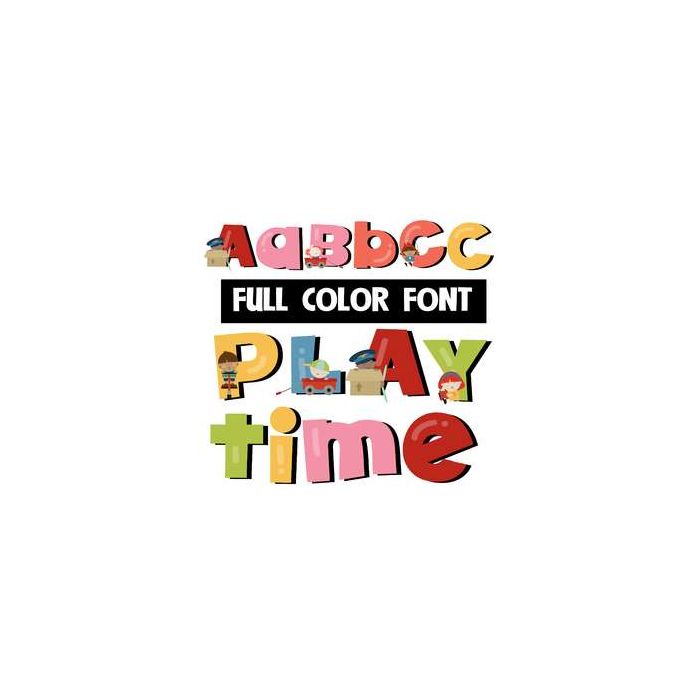
This full-color font is a colorful font with children playing on the uppercase. This font works best for titles, displays, posters and more. Please note color fonts will show as black in non compatible programs. This font type is compatible with Silhouette Studio.